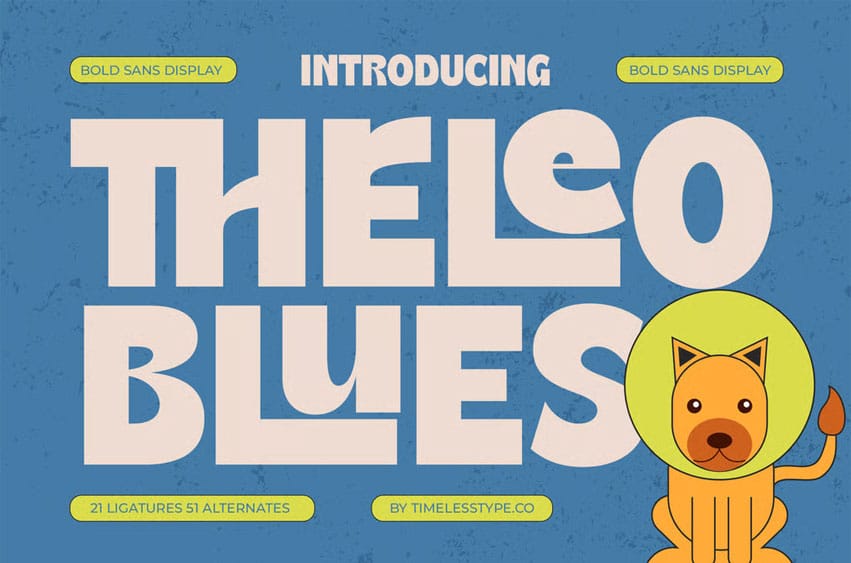
Theleo Blues Font is a bold sans display font with a fun and confident personality. Featuring 21 ligatures and 51 alternates, this typeface combines clean geometry with playful curves, making it ideal for posters, logos, packaging, and modern branding.
Its solid structure and unique details add versatility and character, perfect for projects that need a fresh, bold, and creative visual identity.